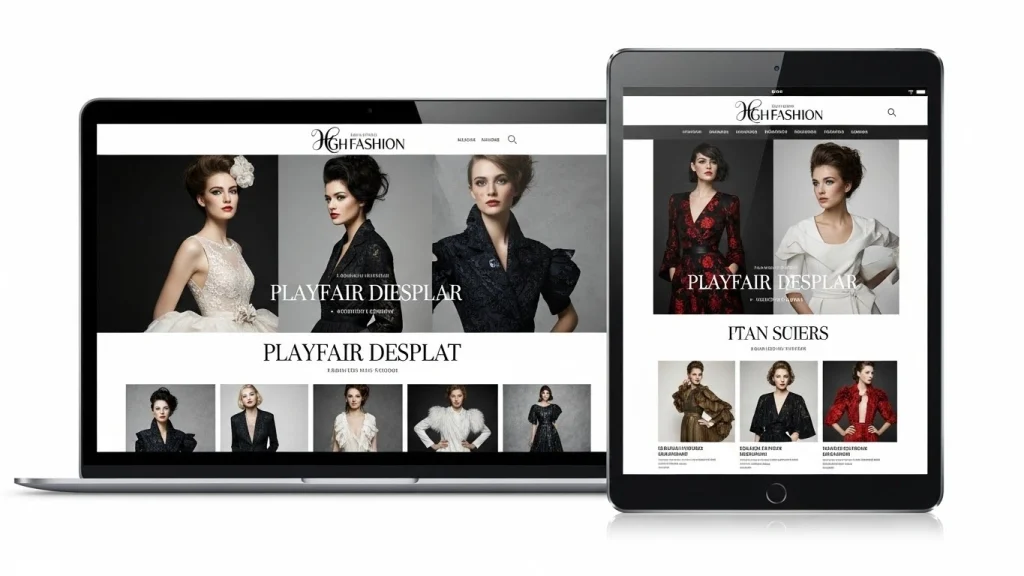
10 Best Aesthetic Google Fonts for Modern Websites
Typography is the silent ambassador of your brand. In 2026, the digital landscape has shifted away from “generic” layouts toward high-character, high-contrast designs that feel more human. Choosing the right aesthetic Google fonts is no longer just about readability; it’s about creating a visual vibe that resonates with your audience the second the page loads. Whether you are building a minimalist portfolio or a bold SaaS landing page, the right typeface can be the difference between a bounce and a conversion.
10 Best Aesthetic Google Fonts
Why Aesthetic Google Fonts Matter in 2026
In an era of AI-generated layouts, “human-centric” design is the new gold standard. Google’s search algorithms now lean heavily into user experience signals, and nothing impacts UX more than typography. Aesthetic Google fonts help establish “Information Hierarchy,” ensuring that your readers don’t just see your content—they feel the personality behind it.
From the sophisticated “Quiet Sans” trend to the return of “Funky Curvy Serifs,” these font aesthetic allow developers to achieve premium looks without the premium price tag.
01. Geometric Sans
Inter
Inter remains the king of modern UI. Designed specifically for computer screens, it features a tall x-height that makes it incredibly legible even at small sizes. It is the go-to for tech-forward, clean, and professional aesthetics.
02. Modern Serif
Playfair Display
If your brand leans toward luxury, fashion, or high-end blogging, Playfair Display is essential. This high-contrast serif brings a “Vogue-like” sophistication to headers.
03. Artistic Sans
Syne
Syne has become a darling of Gen-Z design. Its “Extra Bold” weight is wide and impactful, making it perfect for brutalist or artistic websites.
4. Montserrat
The timeless geometric look inspired by Buenos Aires signage.
5. Lora
Perfect for long-form content with its literary, warm serif feel.
6. Poppins
Approachable and friendly geometric curves for creative startups.
7. Bricolage Grotesque
Quirky professionalism for brands with a unique voice.
8. Manrope
Excels in modern dashboards and cutting-edge mobile interfaces.
9. Fraunces
The soft and funky variable font for retro-modernity vibes.
10. Tech Minimalist
Space Grotesque
For a futuristic or scientific vibe, Space Grotesque is unbeatable. It adds “space-age” quirks that make it look unique and highly curated.
Pro-Tip for Font Pairing
To keep your website’s aesthetic Google fonts looking sharp, follow the “Rule of Two.” Choose one high-character font for your H1 and H2 headers (like Playfair Display or Syne) and one highly readable font for your body text (like Inter or Lato). This creates a visual “anchor” that guides the user’s eye naturally down the page.